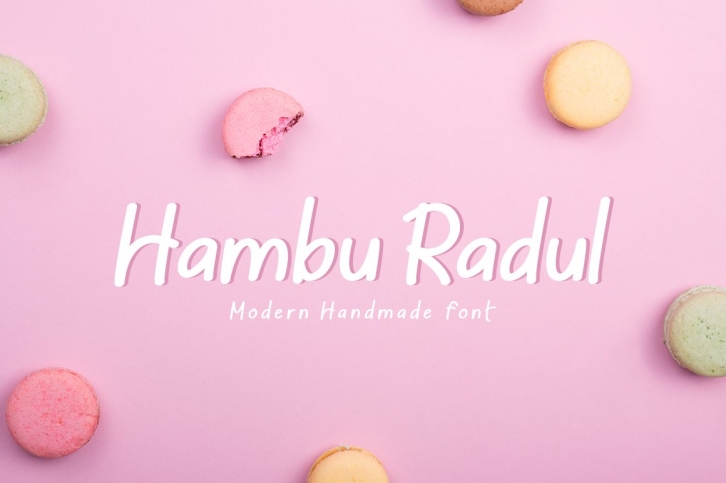
Hambu Radul is a gorgeous font that was realeased on March 19, 2020. The font can be used in many style contexts and design environments. Perfect for invitations, magazines, websites, logos, and more! It was designed by CBRTEXT Studio and the file size is 16.2 MB. Thanks for checking out this font!